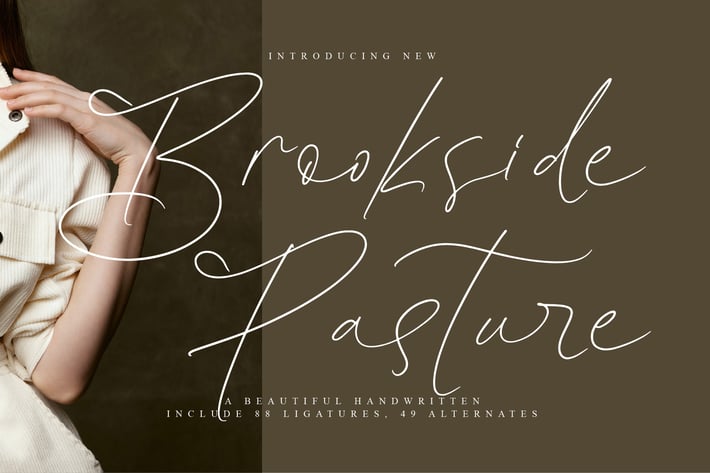
Brookside Pasture Script Font
🌟 Beauty & Versatile Script Font for a Luxurious and Captivating Touch 🌟
Are you looking for a font that adds a touch of beautiful and elegance to your design projects? Introducing Brookside Pasture, a beauty handwritten font crafted with a flowing and sophisticated style!
Each character is uniquely designed to mimic beauty handwriting, giving your text a polished, professional look.
✨ Key Features:
Beauty and Modern Appeal: Ideal for logos, branding, invitations, and other creative designs.
Easy to Customize: Includes alternative characters, ligatures, and swashes for a more personalized look.
Multilingual Support: Equipped with international characters for wider usability.
Responsive Display: Looks stunning on both small and large screens, in print and digital formats alike.
💡 Perfect for:
Branding and Logos
Invitations
Social Media Content
Website Headers
Merchandise Design & more!
Make your project unforgettable with Brookside Pasture – the exclusive font that brings every word to life!